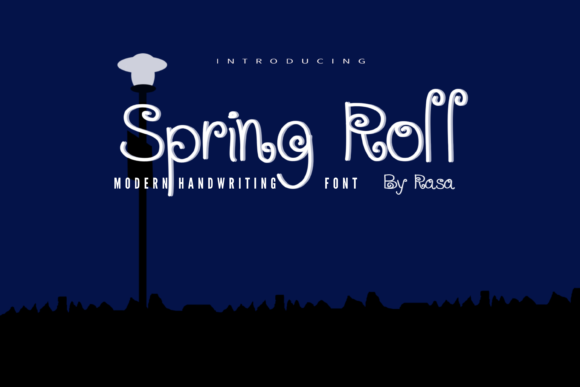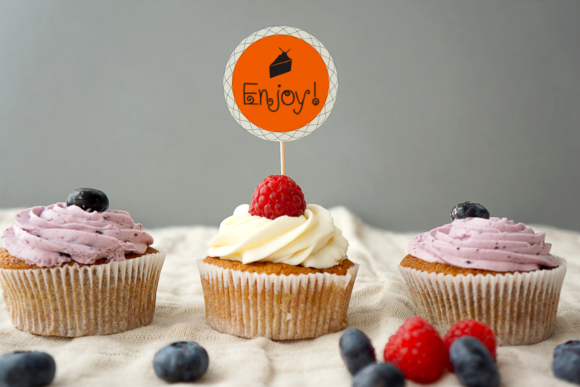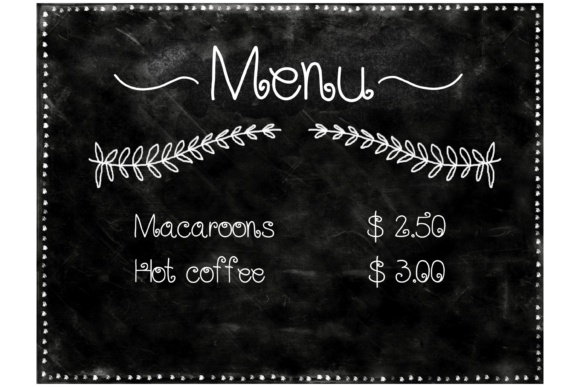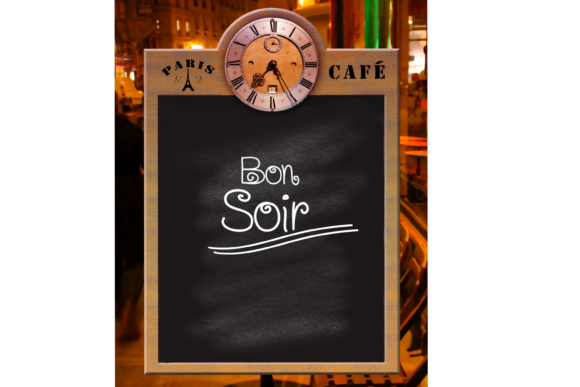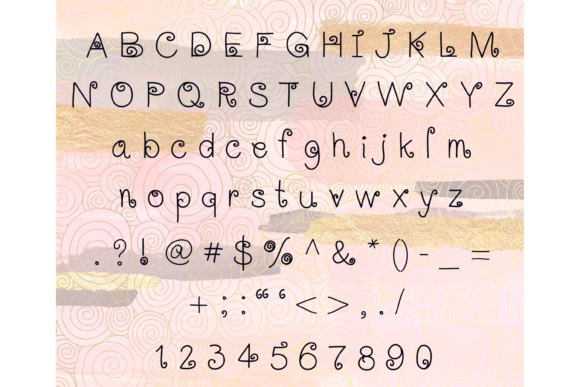
Spring Roll Font
About Spring Roll Font
Spring Roll is a chic and whimsical handwritten font. This original look will appeal to a wide range of crafty ideas, from letterheads and titles, to stationery.